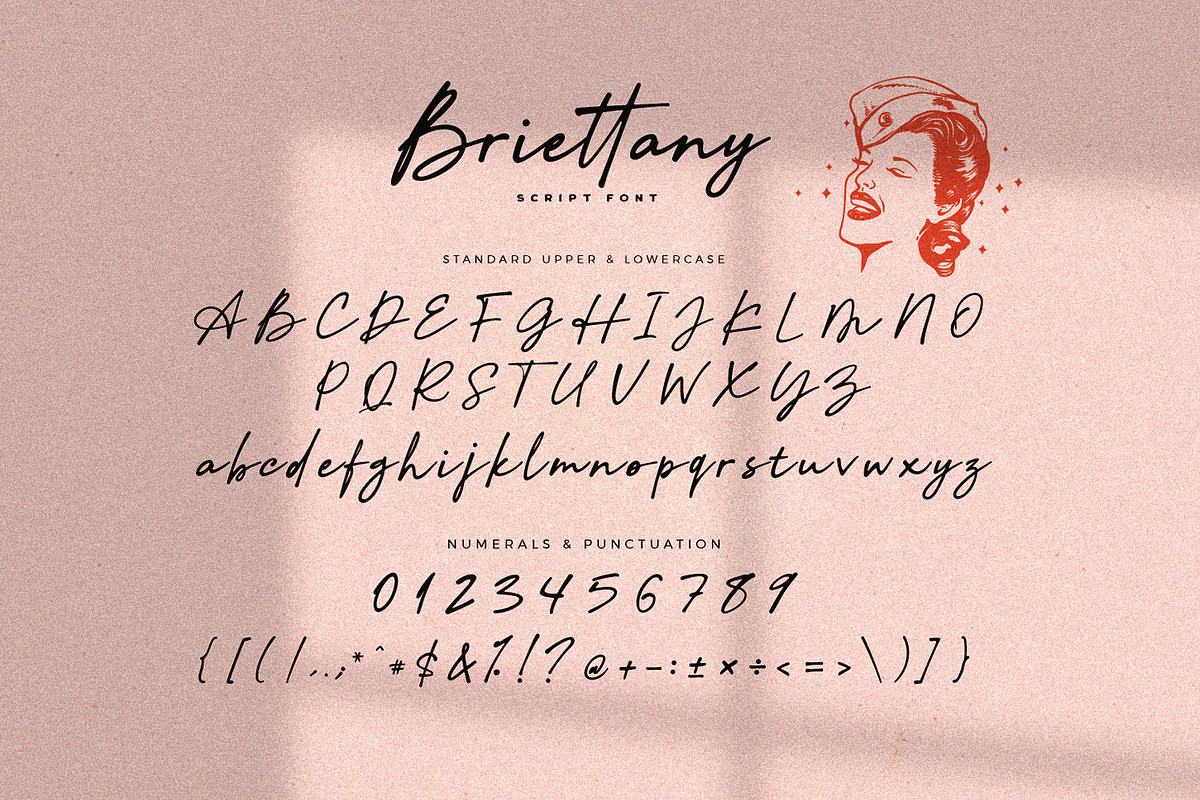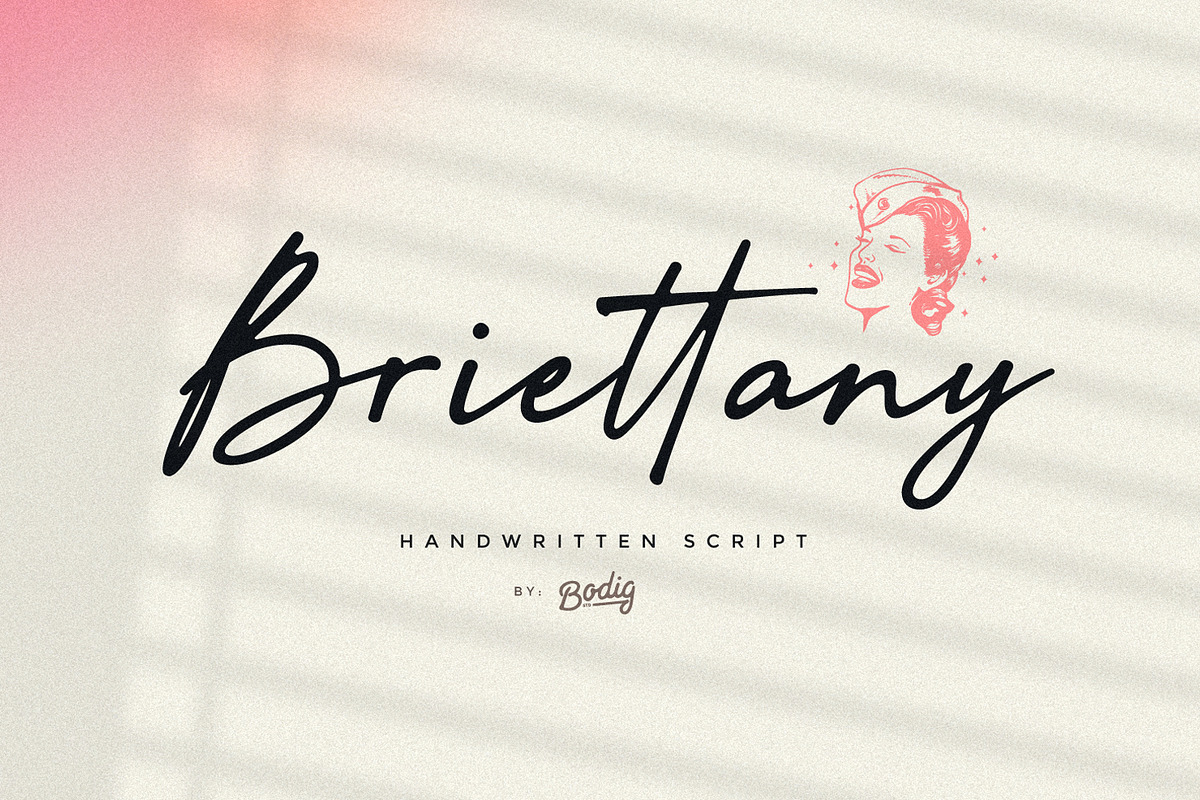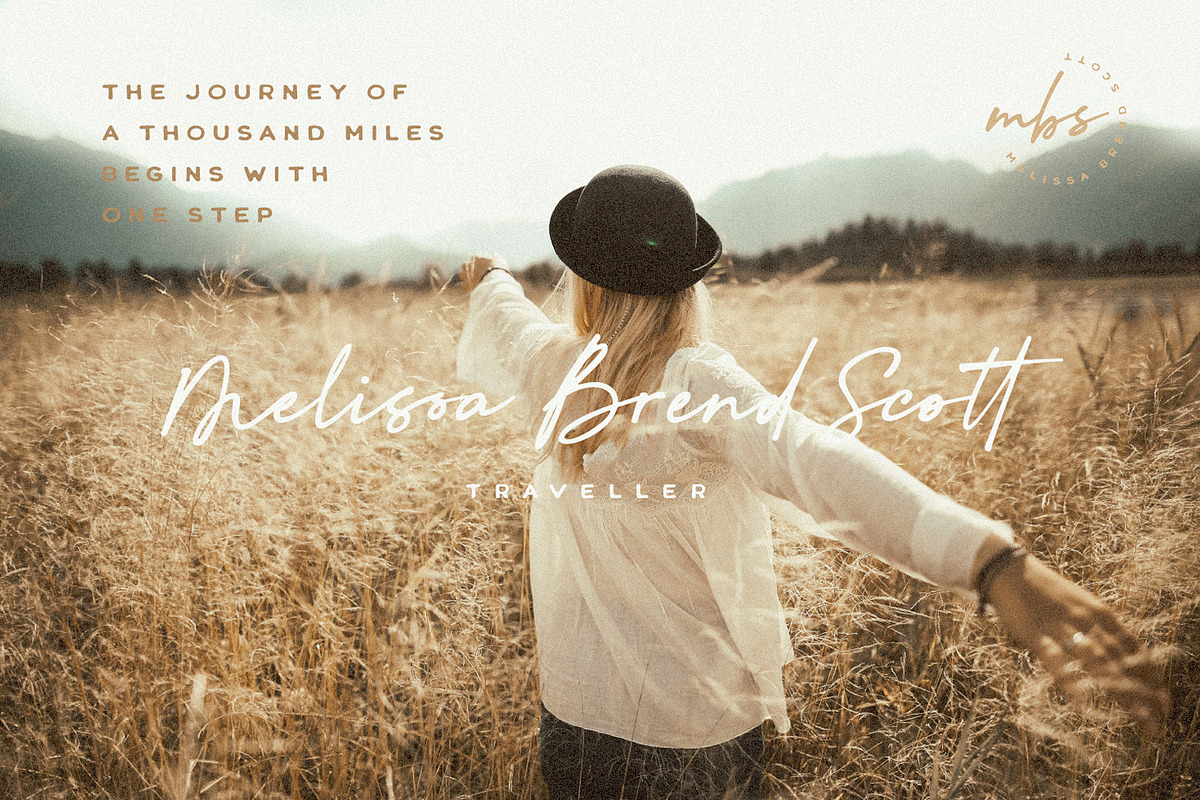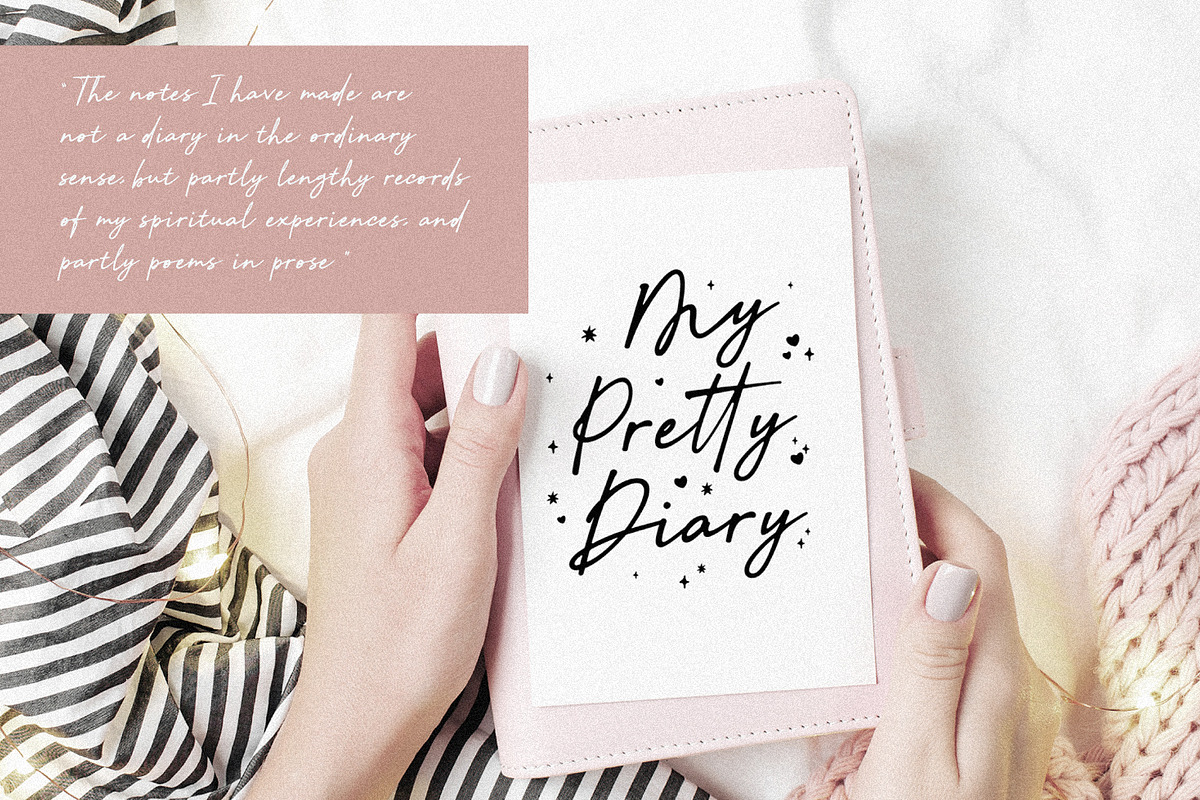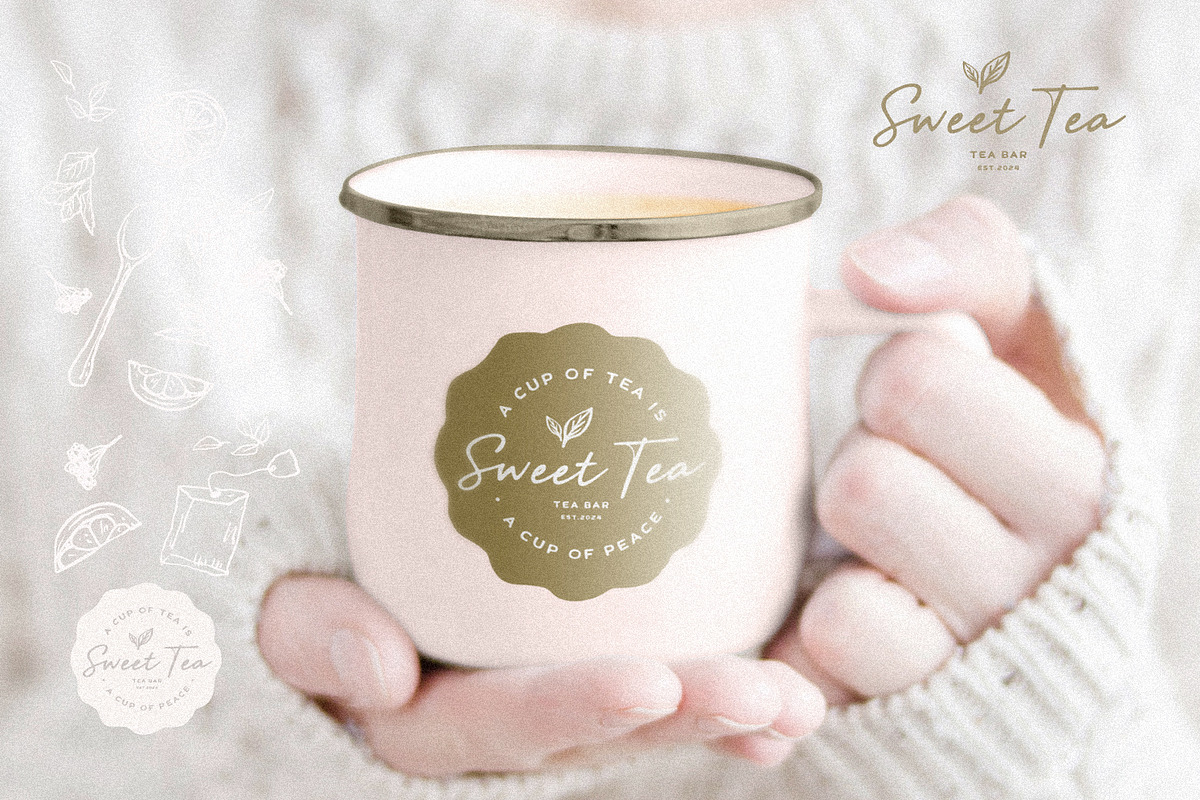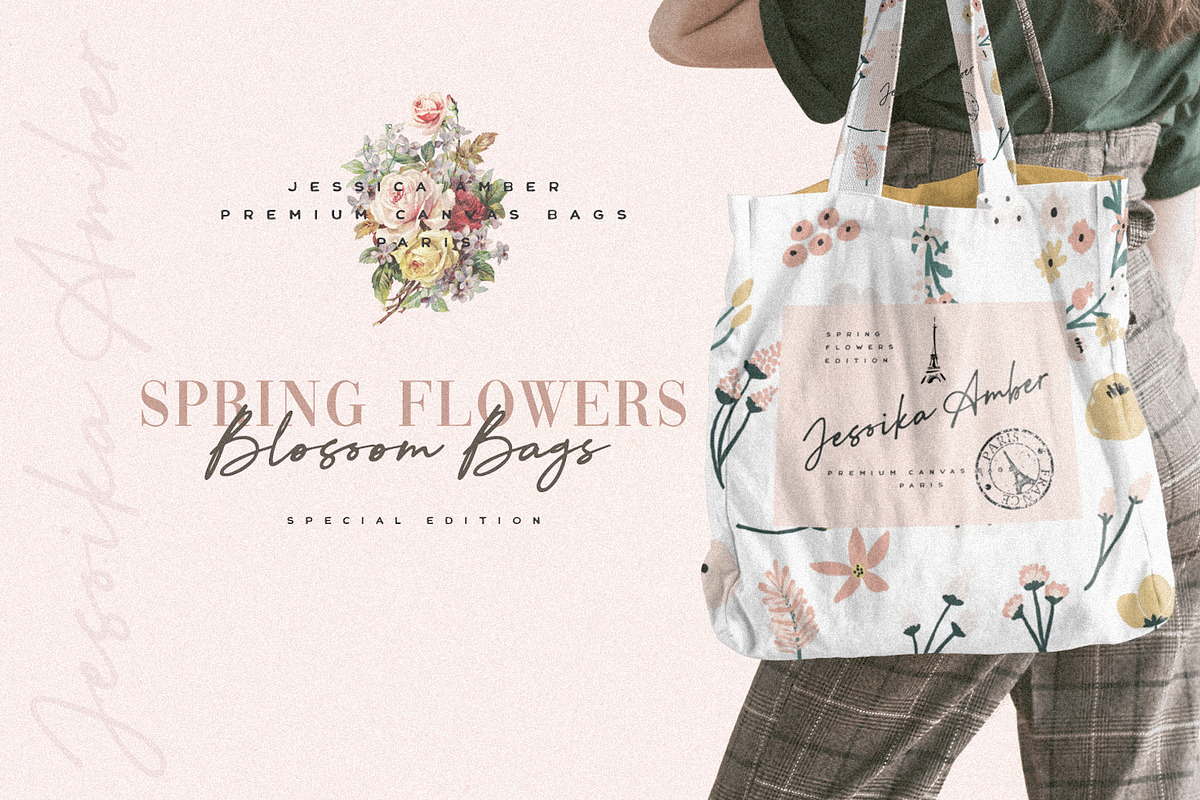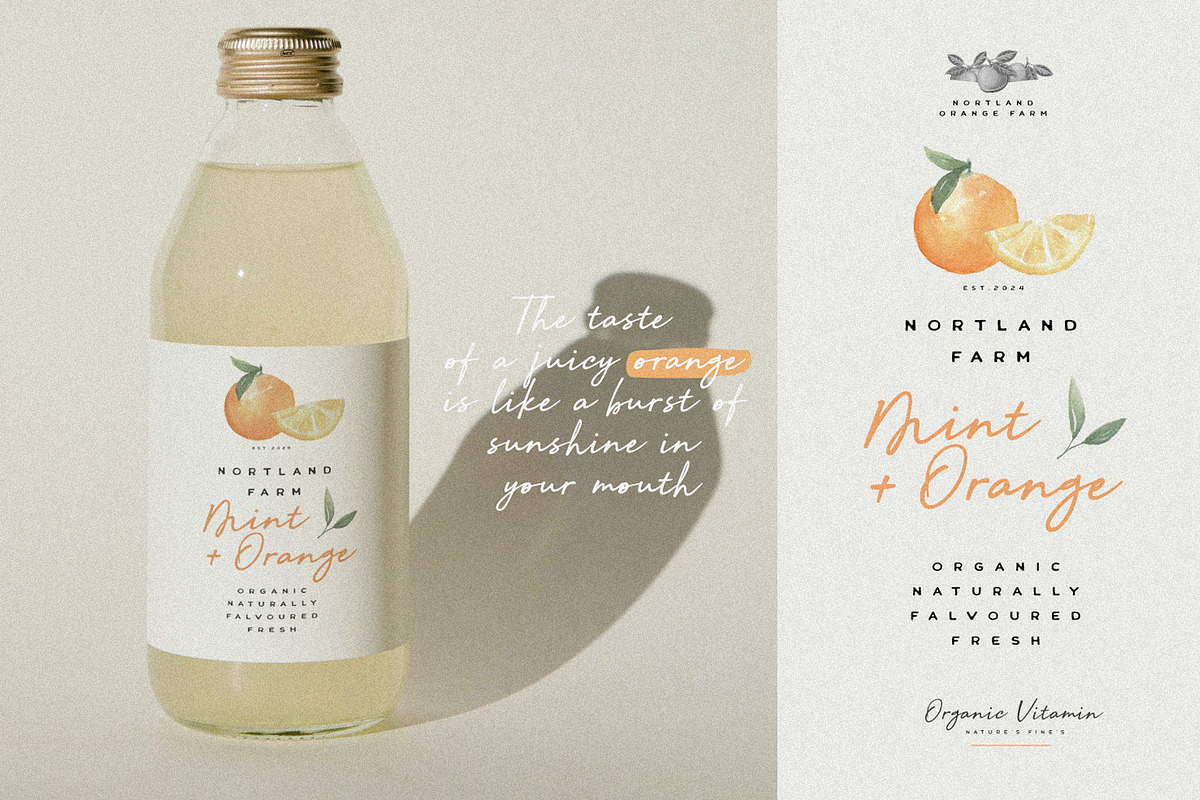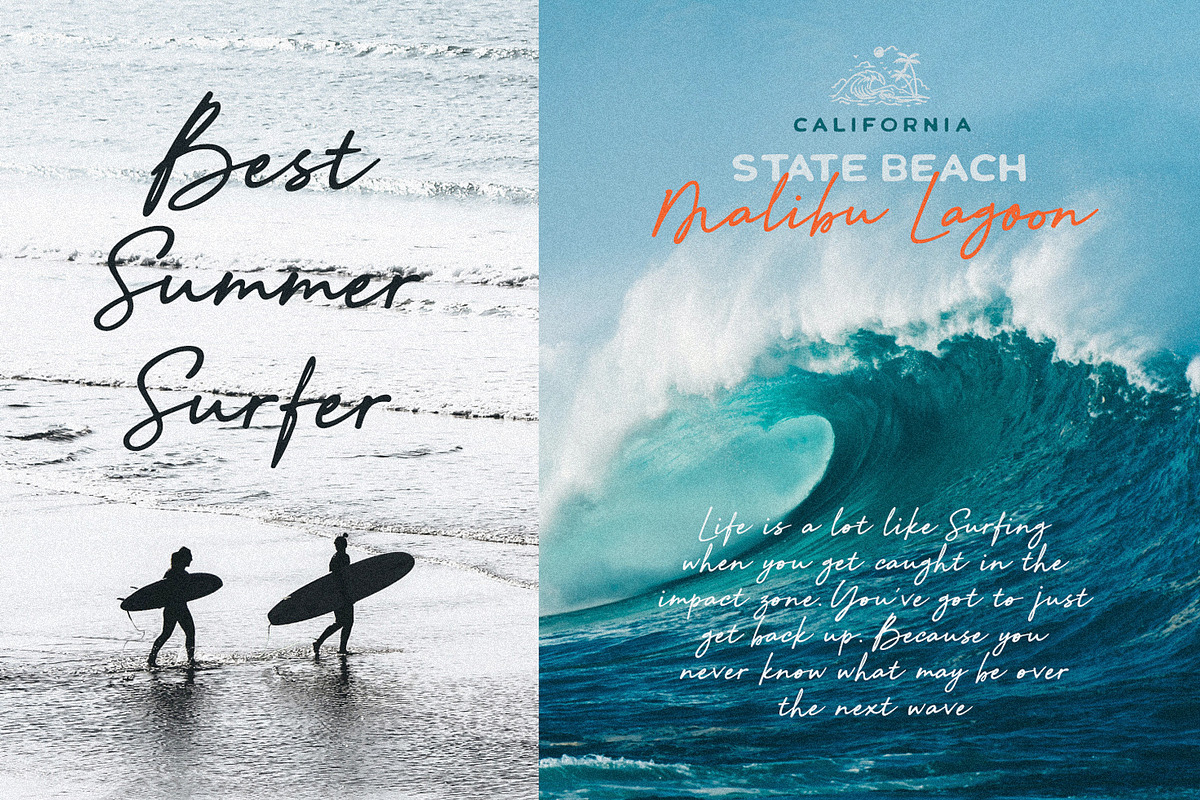
Briettany Font
Briettany is a unique and elegant handwritten script font. It looks beautiful on a variety of designs requiring a personalized style, we can use this for for branding name, signature, wedding designs, social media post, advertisements, logos and more projects that express beautyness and luxurious.